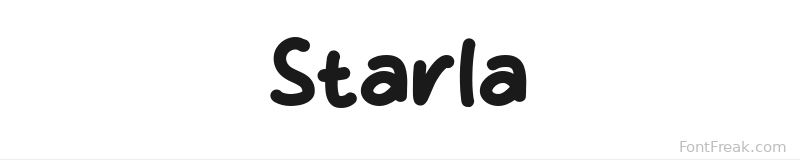
Starla
Introducing the Starla font by MJType, a striking display typeface that exudes personality and charm. This font is classified as a sans-serif, characterized by its clean lines and modern aesthetic. The visual appeal of Starla lies in its bold stroke weight combined with a playful design that offers just the right amount of contrast. The generous spacing between characters enhances readability while maintaining a sense of whimsy, making it perfect for various creative projects.
Starla is an excellent choice for a multitude of applications. Its engaging style makes it ideal for wedding invitations, where it can add a touch of elegance and warmth. Additionally, it shines in movie posters, providing a dynamic element that captures attention. Restaurant menus can also benefit from Starla's unique flair, making dish names stand out and enticing diners. Furthermore, this font is well-suited for branding materials aimed at small business owners looking to make a memorable impression. Content creators will find Starla to be a versatile option for social media graphics, as it can lend a distinctive voice to any visual narrative.
The target audience for Starla includes graphic designers, small business owners, and content creators who are seeking a font that combines modernity with a friendly vibe. The ease of access with the Starla font free download allows users to explore its creative potential without any financial commitment.
What sets Starla apart is its ability to balance sophistication and playfulness, making it a standout choice for anyone looking to inject personality into their designs. Whether crafting a personal project or developing a professional brand, Starla offers a unique typographic solution that resonates with creativity and style.